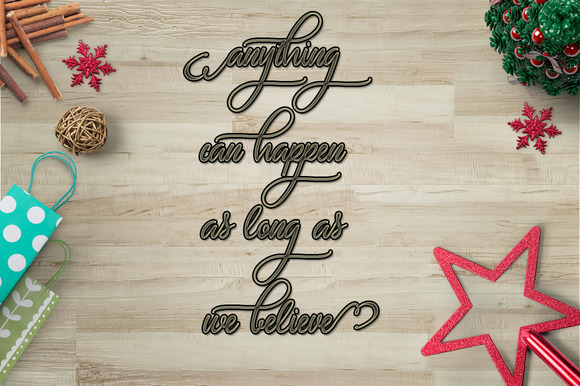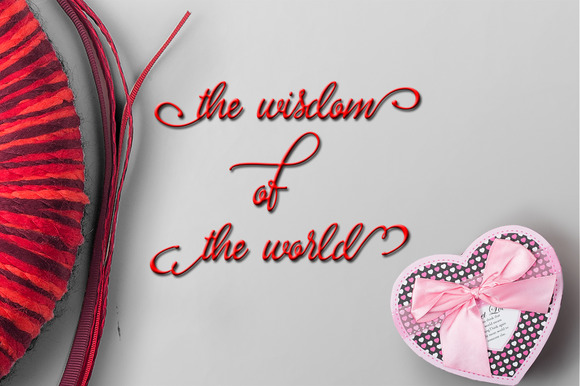
Beautification Font
db-ku.com - Script & Handwritten -- Beautification is a modern calligraphy typeface. This font has a unique form of calligraphy and the handwritten writing style is very natural. It can be used for various purposes such as headings, logos, invitations, t-shirt designs, greeting cards, posters, labels, book covers, brochures, and much more!